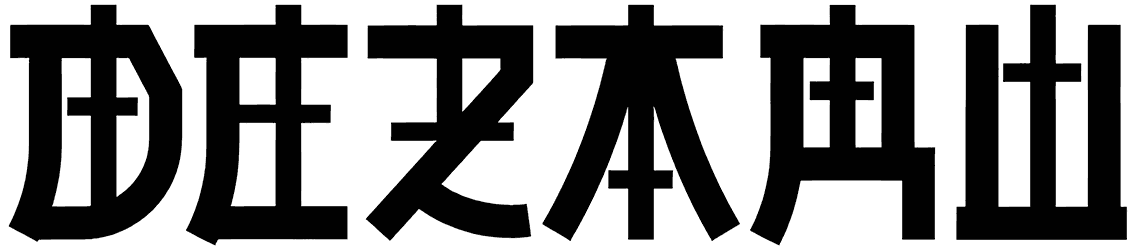
Gunji Font
There comes a time to time that you need a Japanese font to have an Asian effect on your content even though the language is English. In this case, easily use Gunji and achieve the result you were looking for.
Yes, it might be a little hard to read but this collection with letterforms for the uppercase alphabet, numbers, and punctuation marks even without lowercase is a bargain.
Gunji is an awesome chinese inspired display font. It has a great readability and will add a striking touch to any design!
It will look awesome on any T-shirt, print, or restaurant brand!
Designed by: Typefactoryco